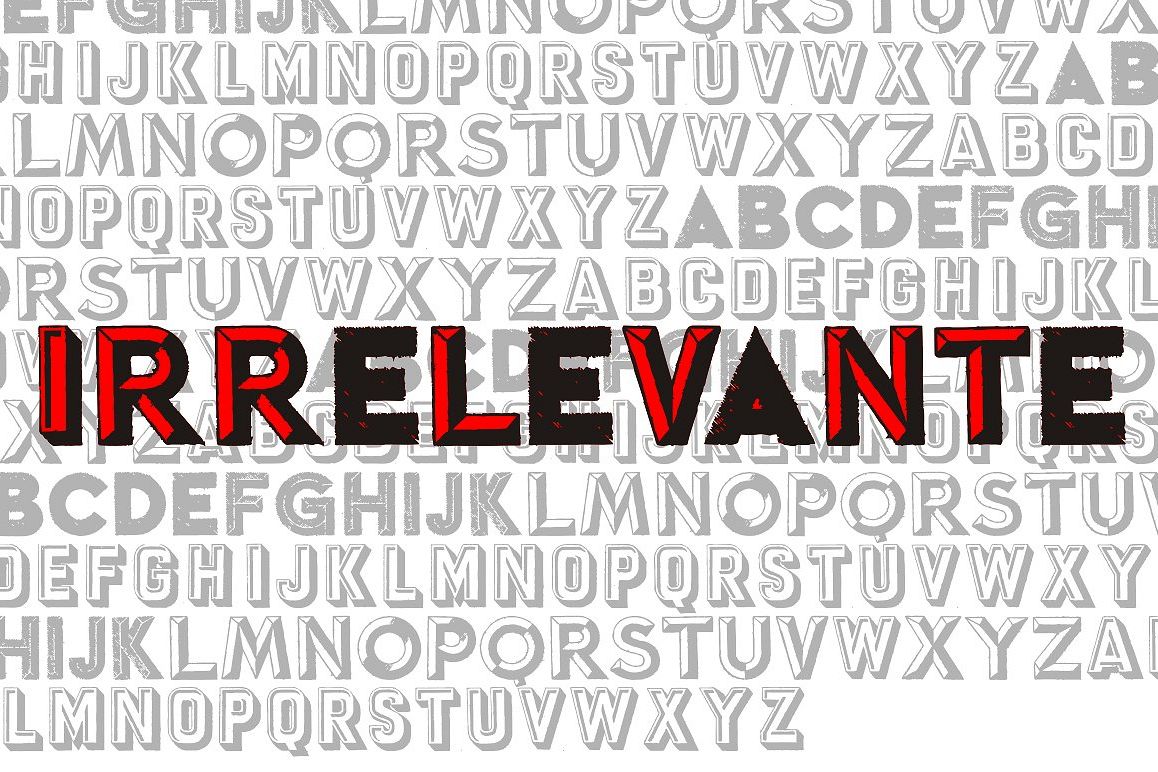
Irrelevante
Irrelevante is a decorative display font great for large header-like usage. Uppercase letter designs only, works best when used for headers containing a limited amount of randomic letter designs